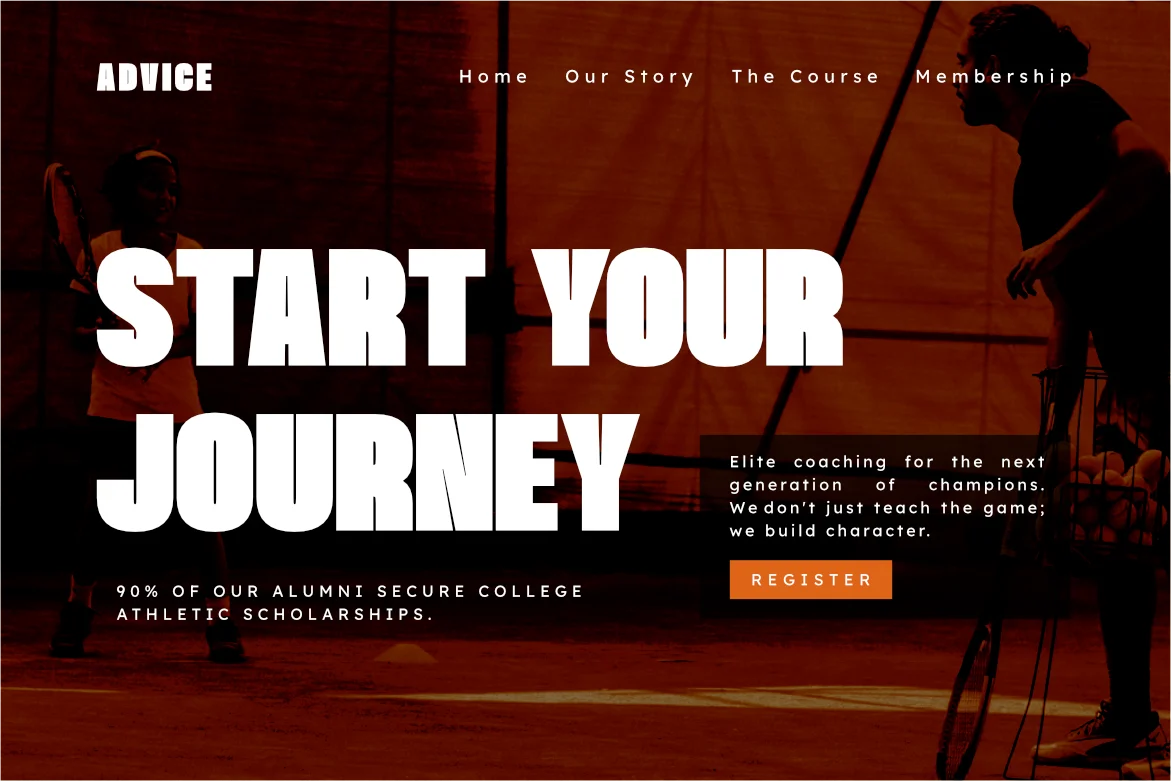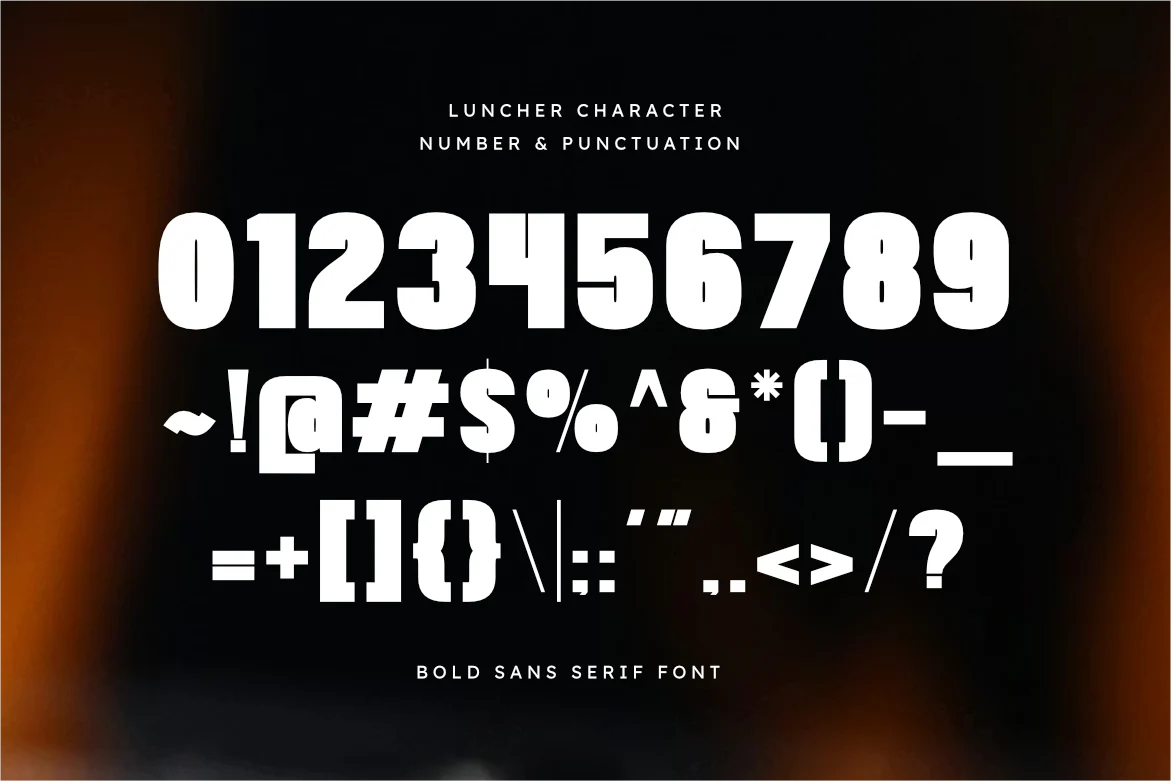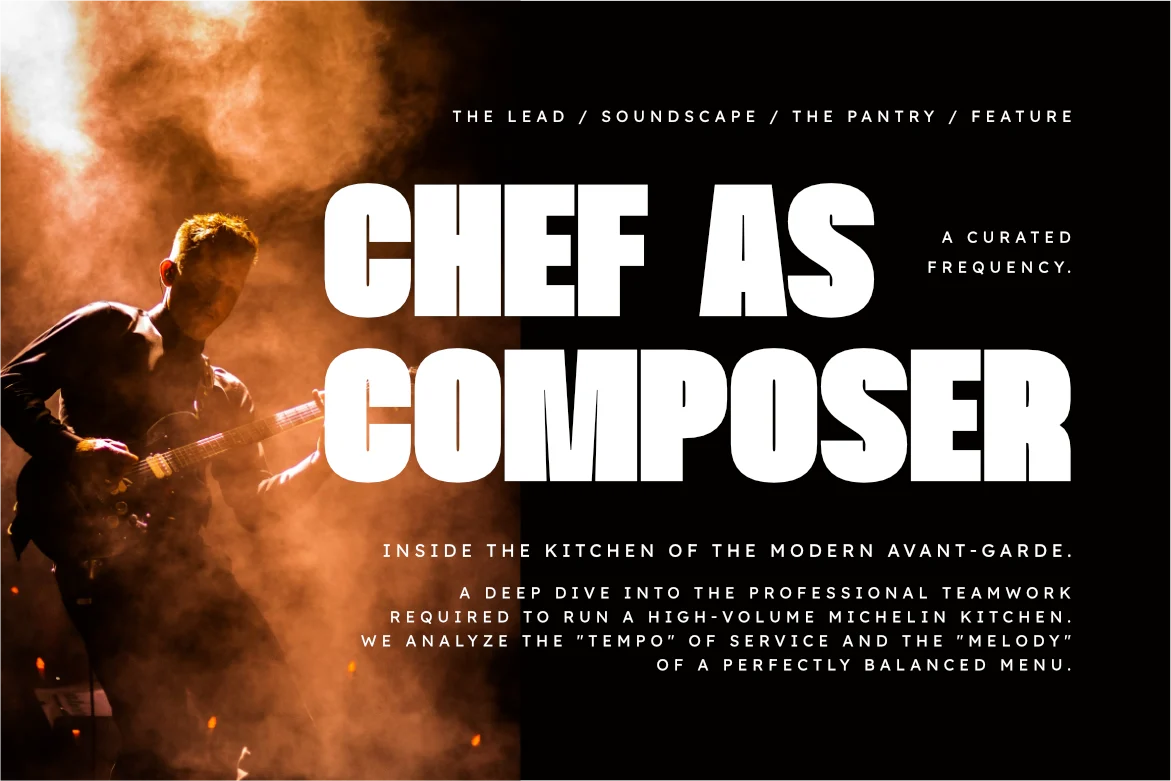
Luncher – Bold Sans Serif Font
Luncher is a sophisticated and powerful bold sans serif font, thoughtfully designed to capture the essence of culinary strength and contemporary storytelling. With its thick, solid structure and clean geometric lines, Luncher offers a professional aesthetic that brings a touch of appetizing authority to any creative project.
This font is the ideal choice for designers looking to add a professional yet high-impact touch to their work. Whether you are crafting a striking food brand logo, a sleek restaurant menu, or bold editorial layouts, Luncher provides a seamless blend of modern flair and timeless power.
- Bold Sans Serif Design: Optimized for a high-impact, sturdy, and professional look.
- Refined Geometric Letterforms: Meticulously crafted for superior legibility and visual weight.
- Commanding Presence: Perfect for headlines, food packaging, and large-scale digital displays.
- Professional Aesthetic: High-end finish for modern hospitality, sports, and industrial branding.
Food and beverage branding, restaurant logos, product packaging, cinematic posters, gym and fitness marketing, and impactful web headers.